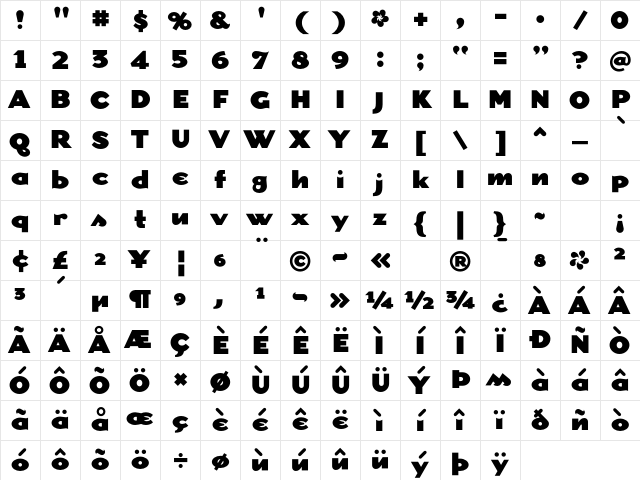
Complete Dogma Black glyph index. Displaying only characters natively supported by Dogma Black font.
Dogma is a composed and adaptable typeface that performs quietly and consistently across a wide range of design contexts.